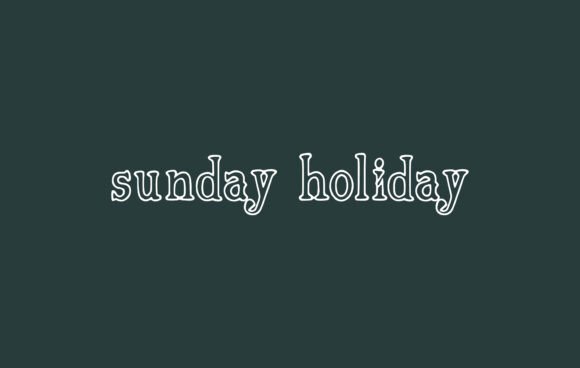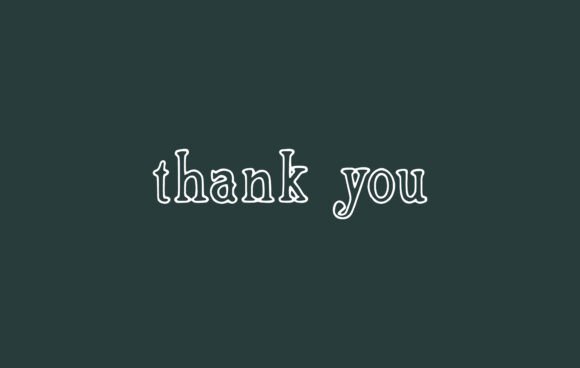
Discover the Charm of Castilla Gothic Font: Elevate Your Designs with a Romantic Touch
In the world of typography, a font can make or break a design. For crafters, designers, and creative enthusiasts, finding the perfect font that captures the essence of their project can be a daunting task. However, if you’re looking for a font that exudes romance, elegance, and a touch of authenticity, look no further than the Castilla Gothic Font. This stunning handwritten font is about to become your new favorite, and for good reason.
The Allure of Castilla Gothic Font
Castilla Gothic font is an authentic handwritten font that boasts a romantic touch, making it perfect for a wide range of design applications. Whether you’re working on a magazine headline, social media post, branding project, wedding invitation, or card, this font is sure to impress. Its unique charm lies in its ability to convey emotion and personality, adding a human touch to your designs that sets them apart from the rest.
Key Features of Castilla Gothic Font
- Legibility and Versatility: One of the standout features of Castilla Gothic Font is its exceptional legibility. This font is designed to look great not only as a title but also as body text, making it incredibly versatile for various design projects.
- Romantic and Elegant: The font’s romantic and elegant feel makes it perfect for designs that require a touch of sophistication and charm. From wedding invitations to luxury branding, Castilla Gothic Font can add the desired emotional impact.
- Authentic Handwritten Feel: Unlike generic fonts, Castilla Gothic Font offers an authentic handwritten feel that resonates with audiences on a personal level. This authenticity can significantly enhance the connection between your design and its viewers.
Applications of Castilla Gothic Font
The versatility of Castilla Gothic Font means it can be used across a multitude of design projects. Here are some of the areas where this font truly shines:
- Magazine Headlines: Add a touch of elegance and sophistication to your magazine with Castilla Gothic Font. Its readability and style make it perfect for headlines and titles.
- Social Media: Stand out on social media platforms with eye-catching text. Castilla Gothic Font can help you create engaging posts that capture the attention of your audience.
- Branding: For brands looking to convey a sense of romance, elegance, or authenticity, this font can be a valuable asset. It’s perfect for logos, packaging, and marketing materials.
- Wedding Invitations and Cards: The romantic feel of Castilla Gothic Font makes it an excellent choice for wedding invitations, greeting cards, and any other stationery that requires a personal touch.
Why Choose Castilla Gothic Font?
In a sea of fonts, Castilla Gothic Font stands out for several reasons:
- Unique Style: Its unique blend of romance and authenticity ensures your designs will have a distinct look that sets them apart.
- High Readability: The font’s design prioritizes readability, ensuring your message is communicated clearly and effectively.
- Creative Potential: With Castilla Gothic Font, your creative potential knows no bounds. It’s an excellent tool for designers looking to push the boundaries of their work.
Castilla Gothic Font is more than just a typeface; it’s a design element that can elevate your projects to new heights. Its romantic touch, combined with its legibility and versatility, makes it an invaluable asset for designers and crafters alike. Whether you’re working on a branding project, social media content, or a wedding invitation, this font has the potential to transform your designs and leave a lasting impression on your audience. So, why settle for ordinary when you can create something extraordinary with Castilla Gothic Font?
Embrace the charm and elegance of Castilla Gothic Font in your next design project and discover the difference it can make.